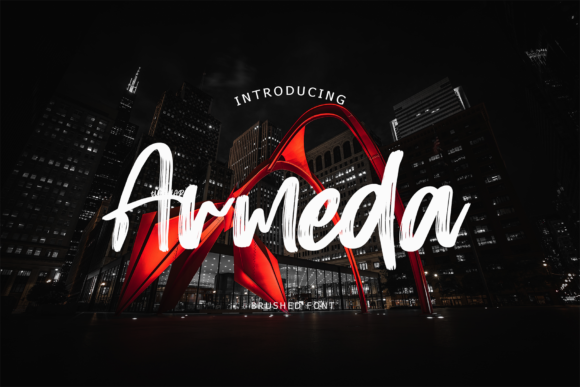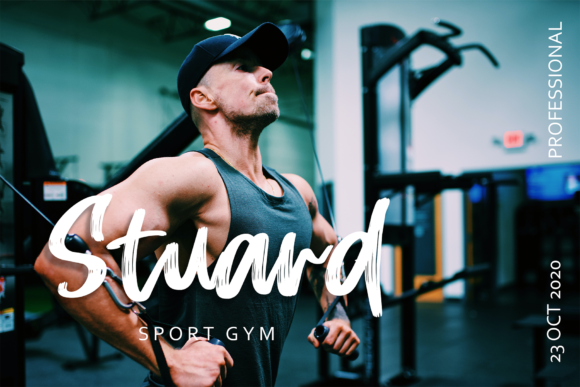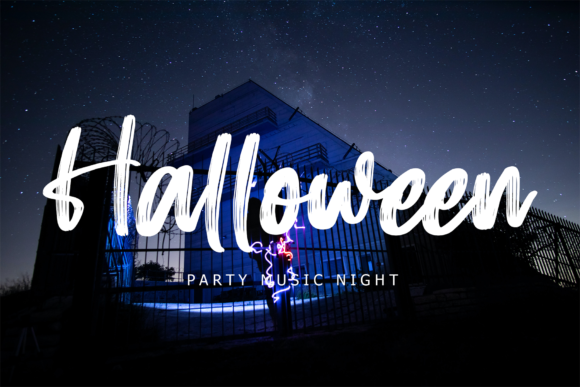
Armeda Font
Armeda is a beautiful and relaxed handwritten font, created with the help of a brush pen. Fall in love with its incredibly versatile style and use it to create gorgeous wedding invitations, beautiful stationary art, eye-catching social media posts, and much more!